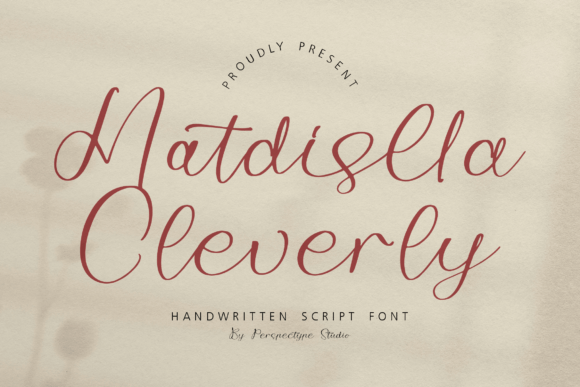
Step into a world of elegance and sophistication with Matdislla Cleverly, the script font that effortlessly captures the essence of timeless beauty. Crafted by Perspectype, Matdislla Cleverly is a flowing handwritten masterpiece designed to ignite your creativity. Immerse yourself in its captivating curves and graceful strokes that mimic the natural rhythm of penmanship, promising to elevate your designs to new heights.
Unleash your artistic vision with Matdislla Cleverly, the perfect font for a multitude of digital and physical creations. Whether you're crafting handmade cards, designing captivating presentations, or adding a touch of elegance to your digital designs, this font is your versatile companion. Its graceful lines dance across the page, evoking a sense of warmth and personality that will leave a lasting impression.
With Matdislla Cleverly, elevate your visual creations and captivate your audience. Its meticulous attention to detail and unwavering commitment to quality make it the ideal choice for discerning designers and creatives seeking a font that truly stands out. This font is your gateway to a realm of endless possibilities, ready to transform your projects into breathtaking works of art.